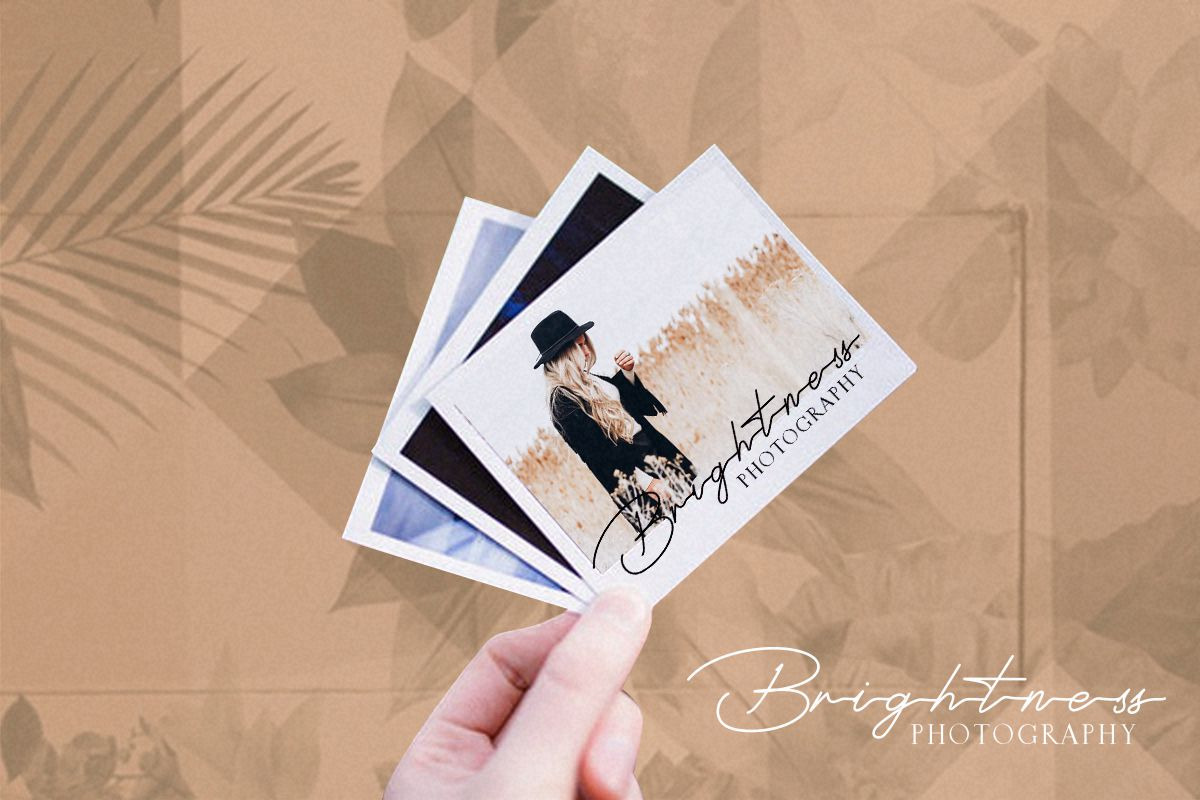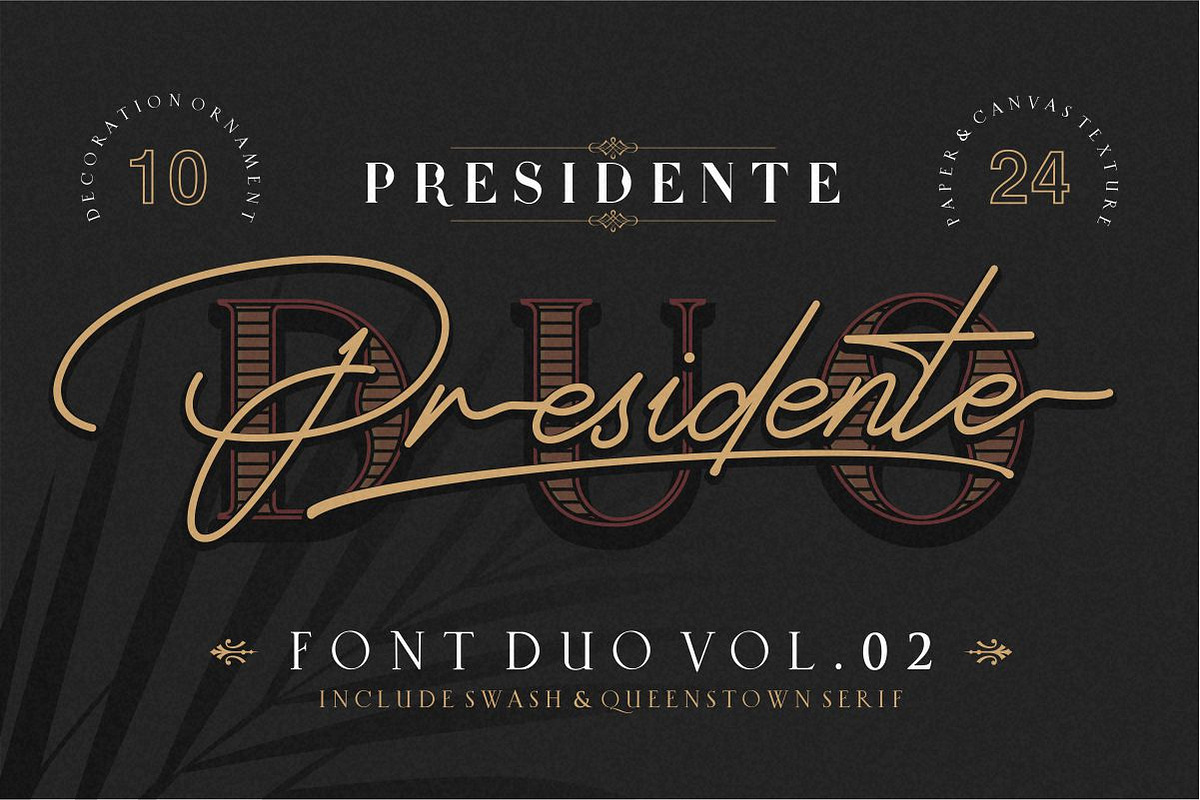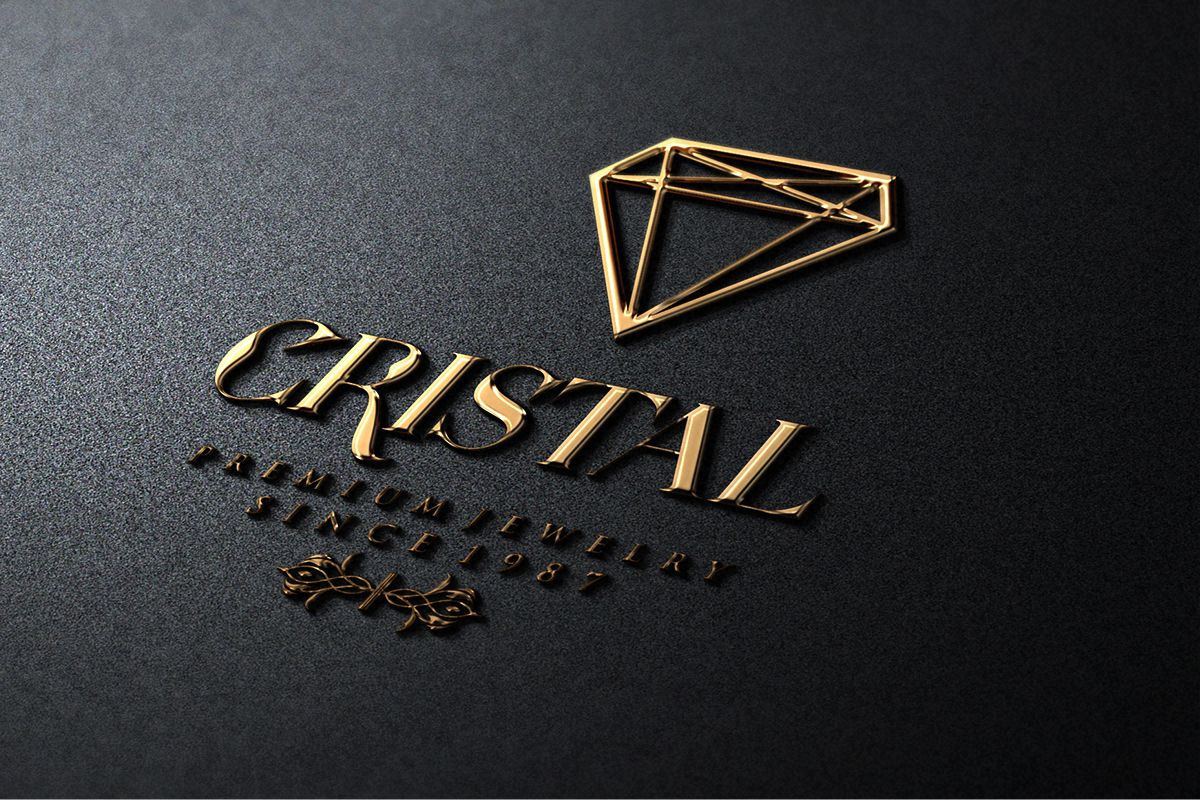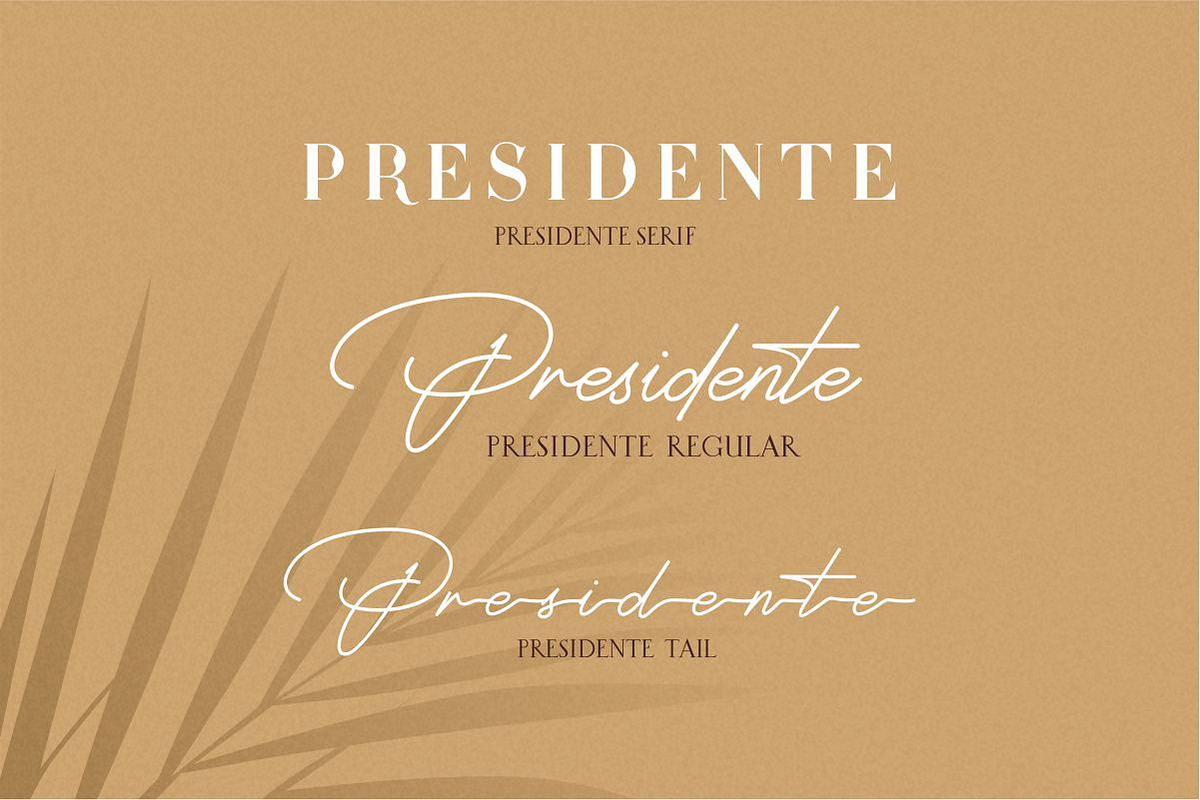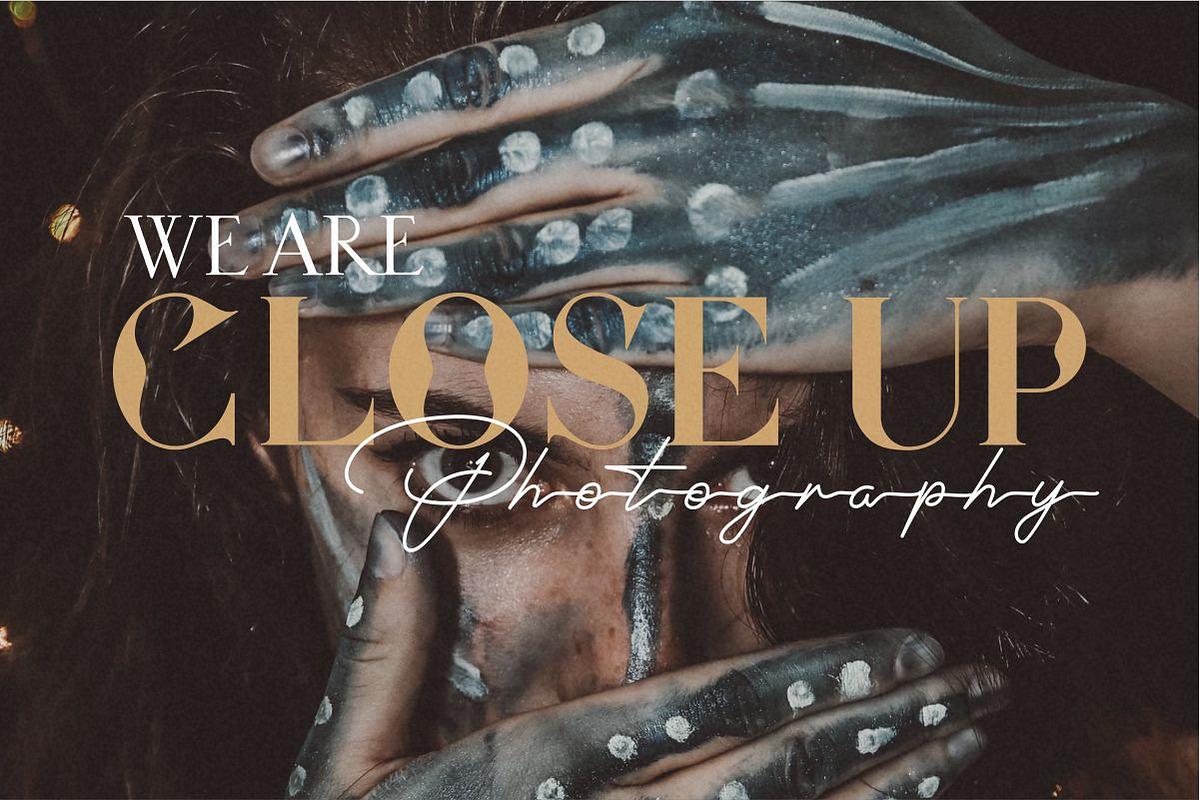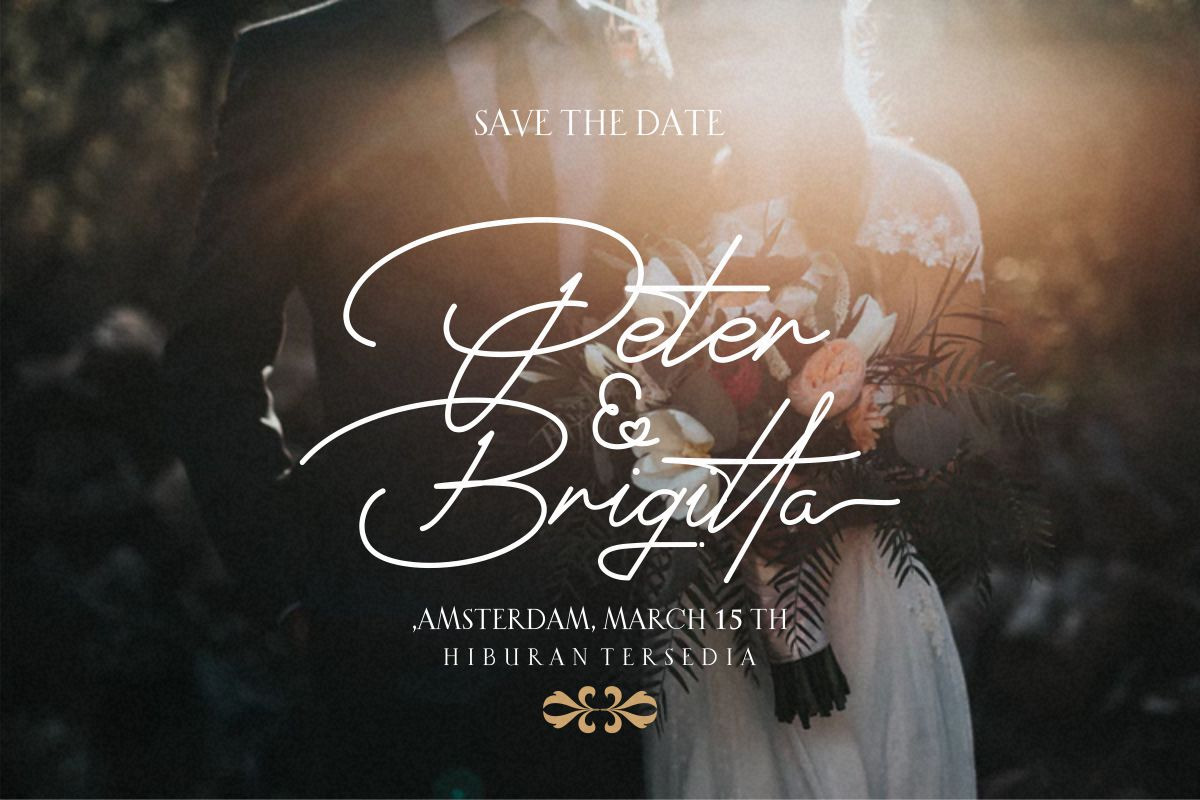
Presidente Font Duo vol.02
Presidente is a Font Duo serif and elegant signature script that are very beautiful,luxurious,elegant and high class for logo font.
This font is perfect for making fashion branding logos,book title,logo photography,watermark photography, social media, wedding invitations, taglines, headlines, and of course signatures.
Presidente include, numbers, punctuation,and it also supports other languages :), includes Ligature ending swashes(lowercase alternate), numbers, punctuation,alternates